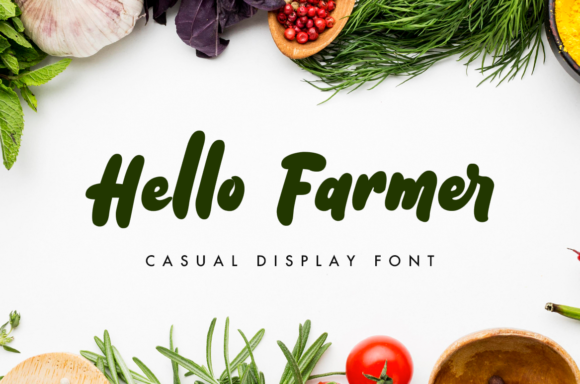
Welcome to the whimsical world of Hello Farmer, where playful charm meets effortless artistry! This exquisite script font, presented by the talented nurfdesigns, is a visual masterpiece crafted to add a touch of whimsy and delight to your creative endeavors.
Immerse yourself in the joyful and carefree spirit of Hello Farmer, a font that exudes warmth and nostalgia. Its playful characters dance across the page, evoking memories of childhood adventures and carefree days. With its charming curves and hand-crafted imperfections, Hello Farmer adds a personal touch to any design, capturing hearts with its endearing appeal.
Whether you're designing promotional materials, creating eye-catching labels and packaging, or crafting captivating logotypes, Hello Farmer is your perfect partner. Its versatility extends beyond the digital realm, making it an excellent choice for branding and artisanal projects. Let your imagination run wild as you explore the endless possibilities of this enchanting typeface.
Transport yourself to a world of creativity and wonder with Hello Farmer. Its heartwarming aesthetics are sure to leave an unforgettable impression, captivating audiences with its infectious charm. Experience the joy of creating designs that resonate with customers on a deeper level, sparking smiles and fostering lasting connections.
Hello Farmer is more than just a font; it's a storytelling tool that empowers you to weave enchanting narratives through visual expression. Unleash your creativity and let the playful spirit of Hello Farmer guide you towards design masterpieces that leave a lasting legacy.